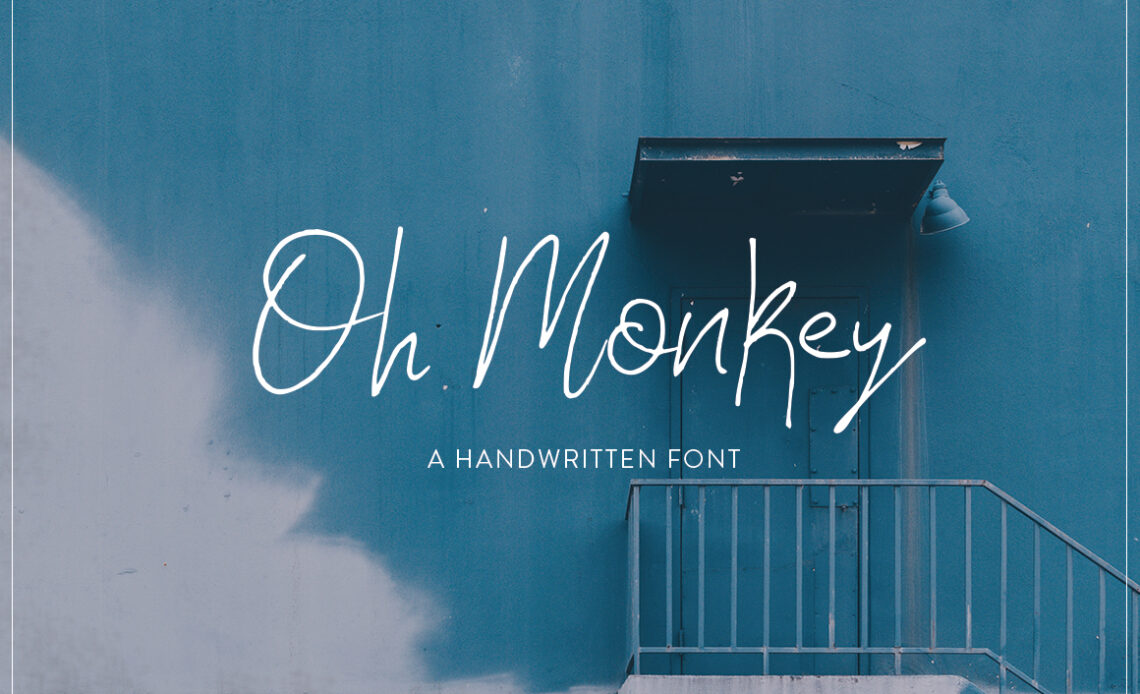
Oh Monkey Font
Download Oh Monkey Font for free! Created by Salt and Pepper Fonts and published by Damian Kelly, this script font family is perfect for adding a unique touch to your designs.
Step into the world of Oh Monkey Font, where sophistication and charm intertwine! This exquisite script font, hailing from the creative minds at Salt and Pepper Fonts, is poised to captivate your senses and transform your designs.
Oh Monkey Font exudes a captivating allure, with its monoline feel and hand-drawn, natural flow. Each character dances across the page like a delicate butterfly, creating the illusion of an effortless signature. This font possesses an inherent elegance that transcends time, making it an ideal choice for designers seeking to evoke a sense of timeless charm.
Its irregular rhythm adds a touch of whimsy and playfulness to your projects. Whether you're crafting wedding invitations, creating eye-catching logos, or designing enchanting social media posts, Oh Monkey Font will effortlessly elevate your vision.
With its versatility, Oh Monkey Font seamlessly adapts to a myriad of design styles. Unleash your creativity and immerse yourself in the world of branding, packaging, and web design. The possibilities are endless with this captivating script font at your fingertips.
Oh Monkey Font is more than just a collection of characters; it's an invitation to express your individuality and make a statement. Its uniqueness lies in its ability to add a dash of personality to any project, leaving an indelible mark on your audience.
So, why settle for ordinary when you can embrace the extraordinary? Download Oh Monkey Font today and embark on a journey of design excellence. Let your creativity soar and captivate your audience with this enchanting script font.